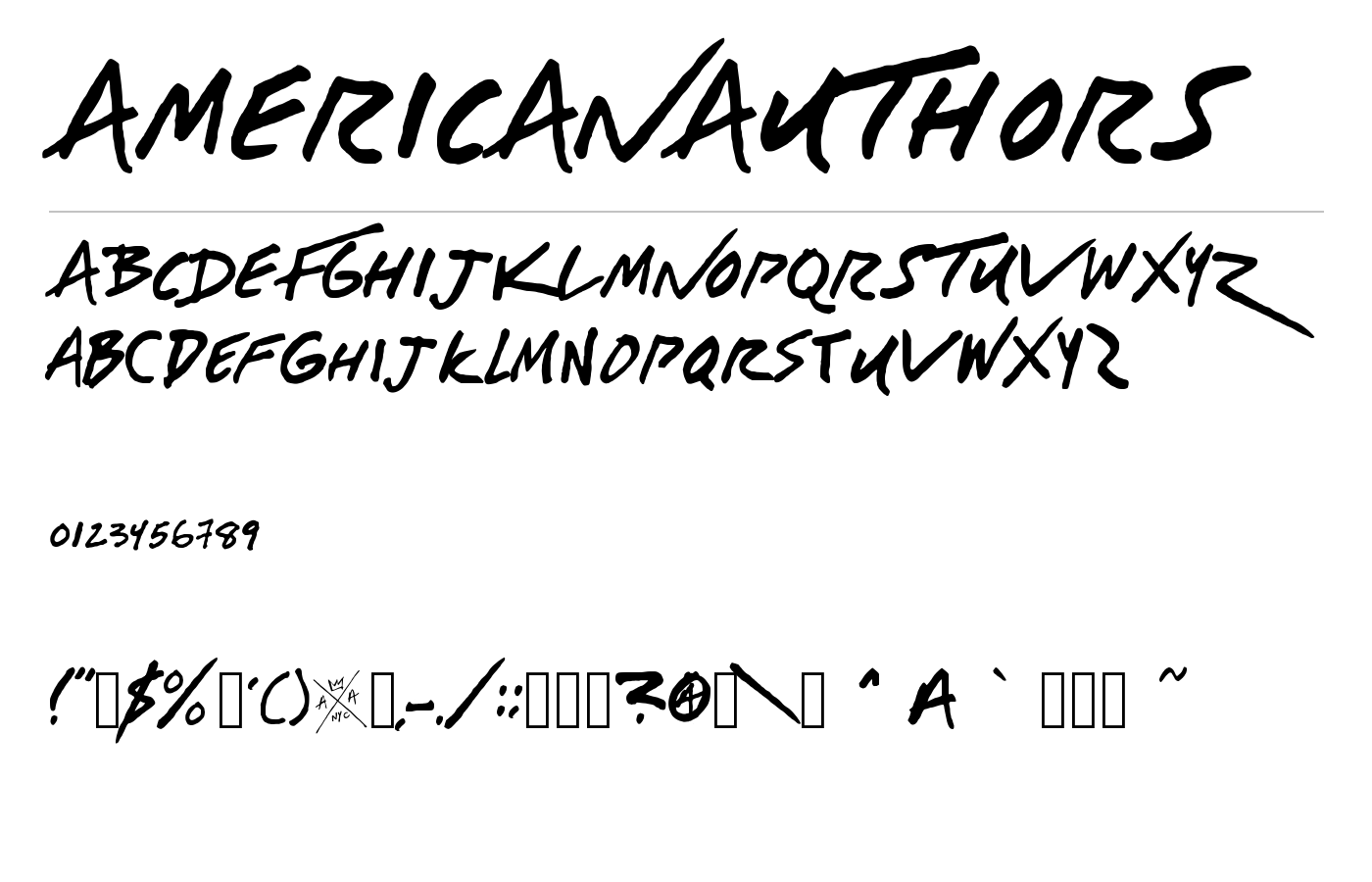
AMERICANAUTHORS is a bold, energetic script font that mimics spontaneous handwriting with irregular, sharp strokes and a dynamic flow. Its informal, expressive style makes it perfect for creative projects, branding that wants a personal touch, and edgy designs that stand out with an authentic, lively voice. This font works well in logos, posters, and headlines where a raw, artistic feel is desired.
AMERICANAUTHORS Font
About AMERICANAUTHORS Font